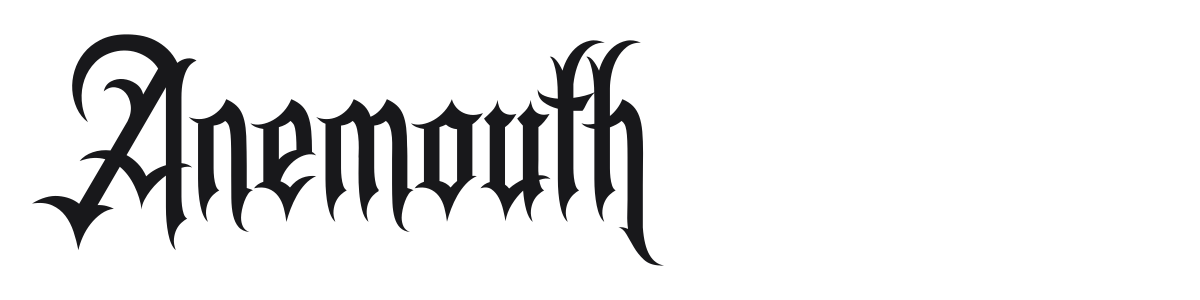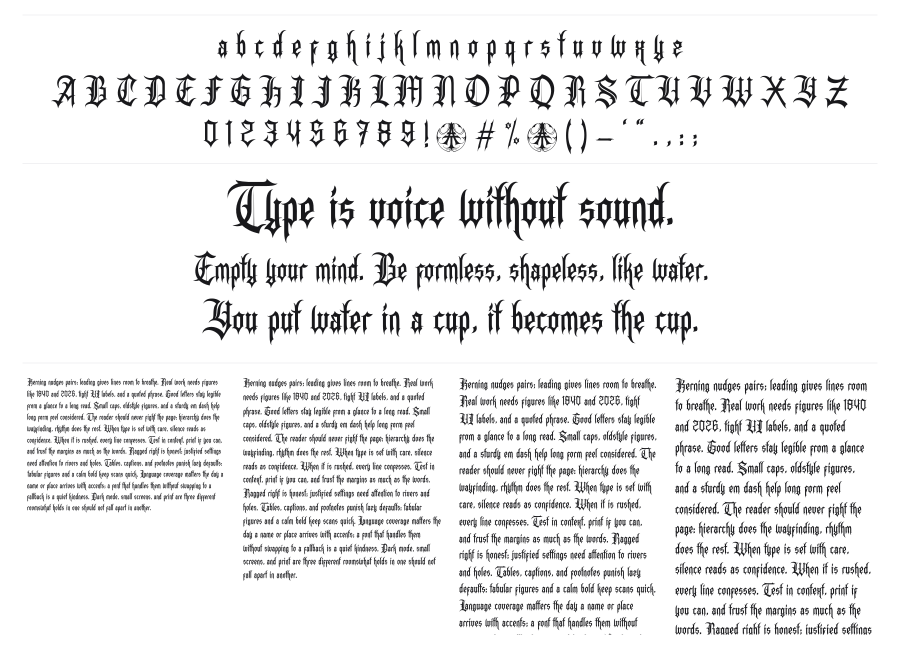
Anemouth
Anemouth is a heavy gothic blackletter with sharp, angular details and high stroke contrast that leans hard into dark, aggressive territory. The pointed spurs and condensed construction give it a distinctly modern heavy-metal edge while staying rooted in classic blackletter structure. It works at large sizes for band logos, poster headlines, and anything that needs weight and menace.